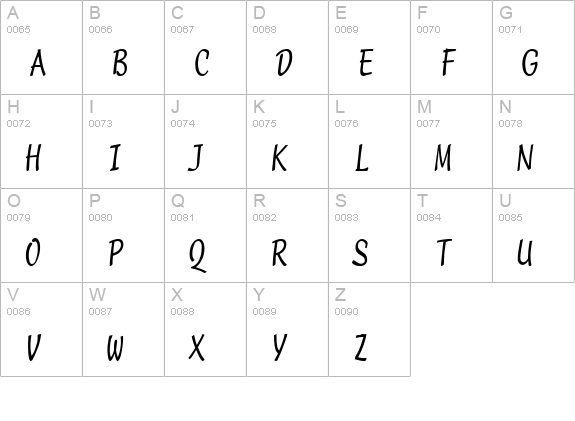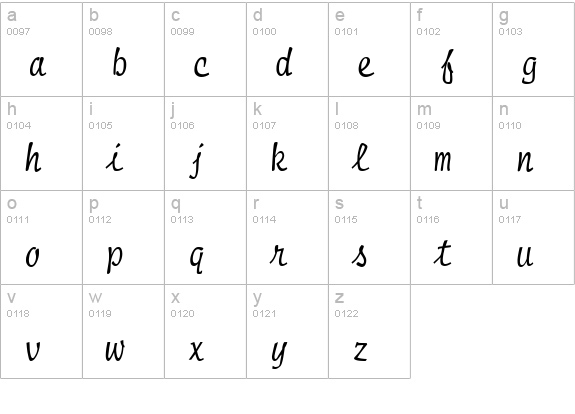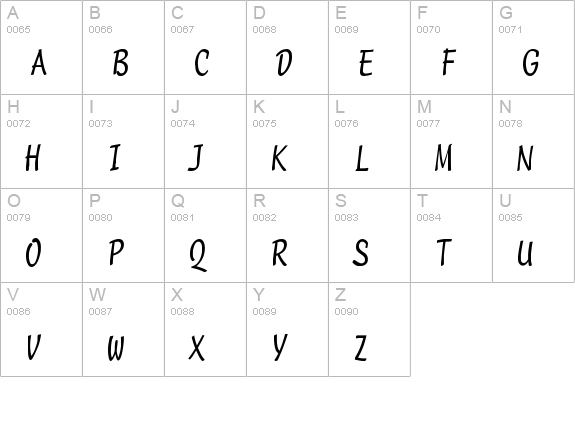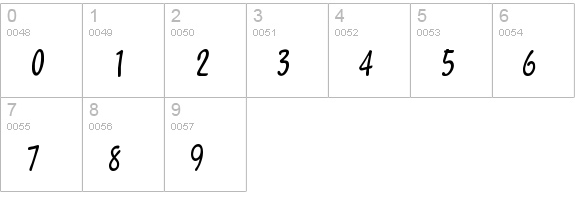
Manuscript Condensed Normal is the standard, neutral, condensed-width variant in the Manuscript typeface family \xE2\x80\x94 well suited to general body text, paragraphs, and standard typographic work.
The Manuscript Condensed Normal font is a sleek and sophisticated typeface that exudes elegance and professionalism. With its condensed letterforms, it is perfect for creating eye-catching headlines or adding a touch of refinement to any design project. This font features clean lines and precise curves, giving it a modern and contemporary feel. Its condensed nature allows for more characters to fit within a limited space, making it ideal for projects that require a lot of text without sacrificing legibility. The Manuscript Condensed Normal font is versatile and can be used across a wide range of design applications, including branding, advertising, packaging, and more. Its timeless aesthetic ensures that it will remain relevant and stylish for years to come. One of the best things about the Manuscript Condensed Normal font is that it is free to download at FontsMarket.com. This means that you can easily access this high-quality font without any cost or restrictions. Whether you are a professional designer, a student, or simply someone who appreciates beautiful typography, this font is a must-have addition to your collection. So, if you are looking for a font that combines elegance, versatility, and affordability, look no further than the Manuscript Condensed Normal font. Download it for free today at FontsMarket.com and elevate your design projects to new heights.